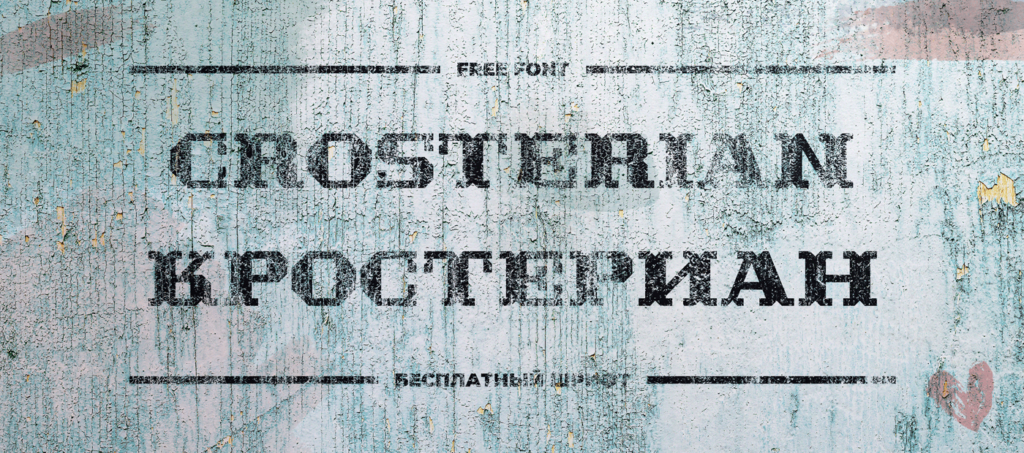
Crosterian is a geometric slab serif typeface inspired by Tuscan typefaces.
Кростериан — геометрический слаб-сериф, строгий, но справедливый.
Crosterian is a geometric slab serif typeface inspired by Tuscan typefaces.
Кростериан — геометрический слаб-сериф, строгий, но справедливый.